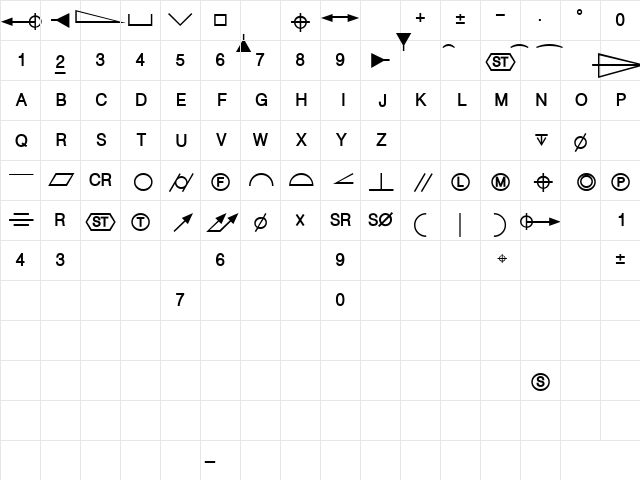
P22 GDT NoFrames Regular Free Font
P22 GDT NoFrames Regular
Design Context for P22 GDT NoFrames
P22 GDT NoFrames is a composed and adaptable typeface that performs quietly and consistently across a wide range of design contexts.